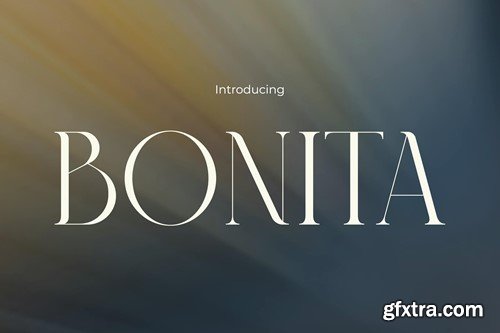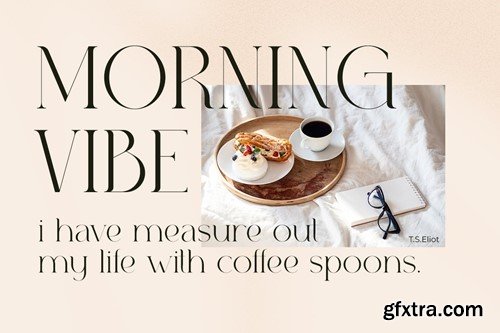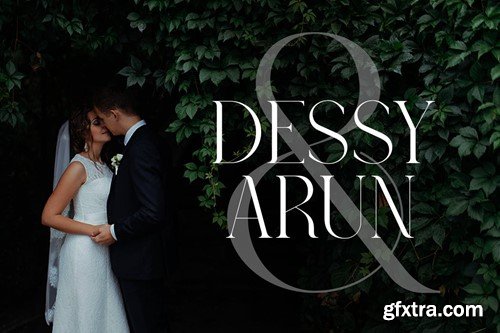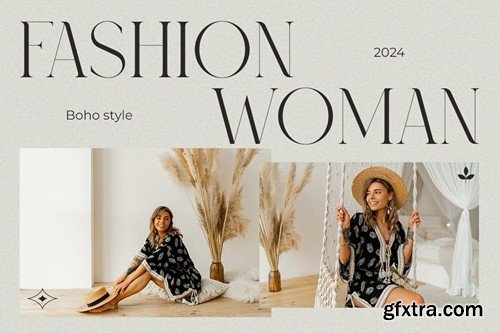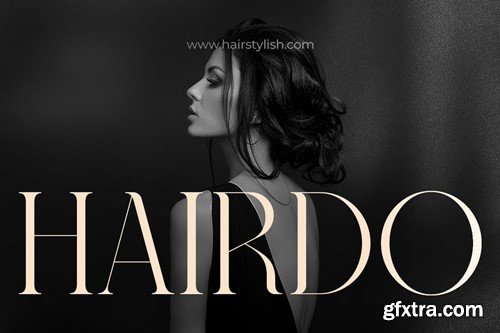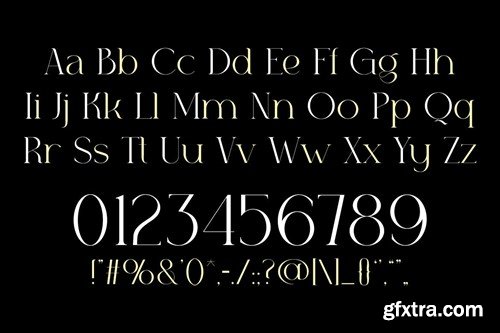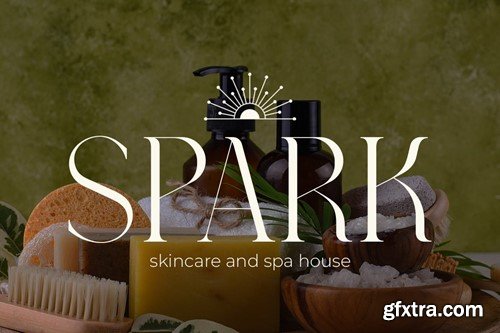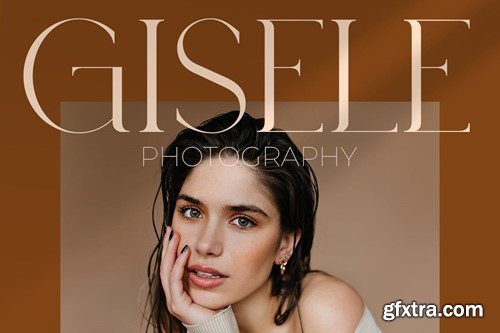
Bonita - Sleek Elegance Modern Font
Bonita is a font displaying modern elegance designed to bring a sleek and sophisticated touch to various creative projects. Its clean lines and contemporary style make it perfect for logos that require a touch of class and distinction. Bonita enhances quotes with its understated beauty, ensuring each word stands out with clarity and style. It is also ideal for crafting invitations that exude sophistication, making every event feel exclusive. Bonita maintains a consistent and upscale presence that elevates your designs, whether used for posters, greetings, or branding. In packaging and advertising, this font helps products shine with a premium look, and its elegant style ensures covers and headlines capture attention effortlessly.